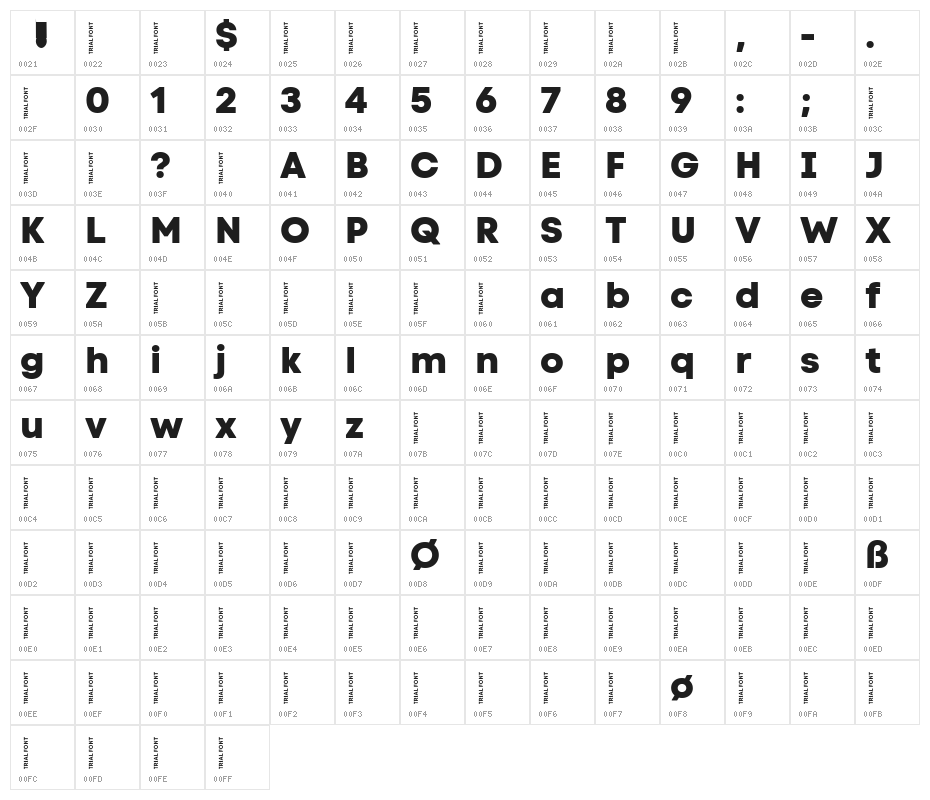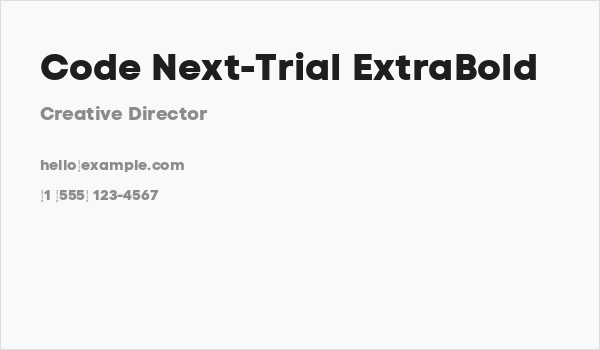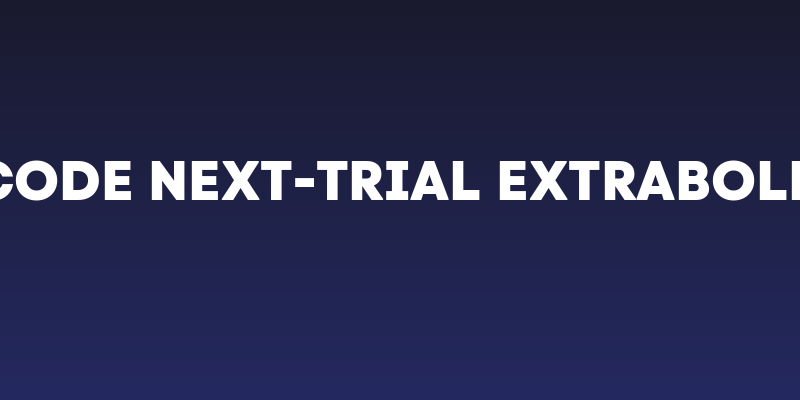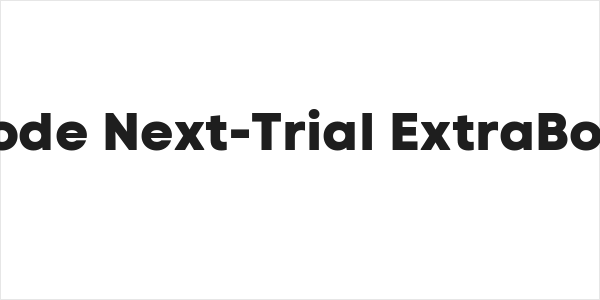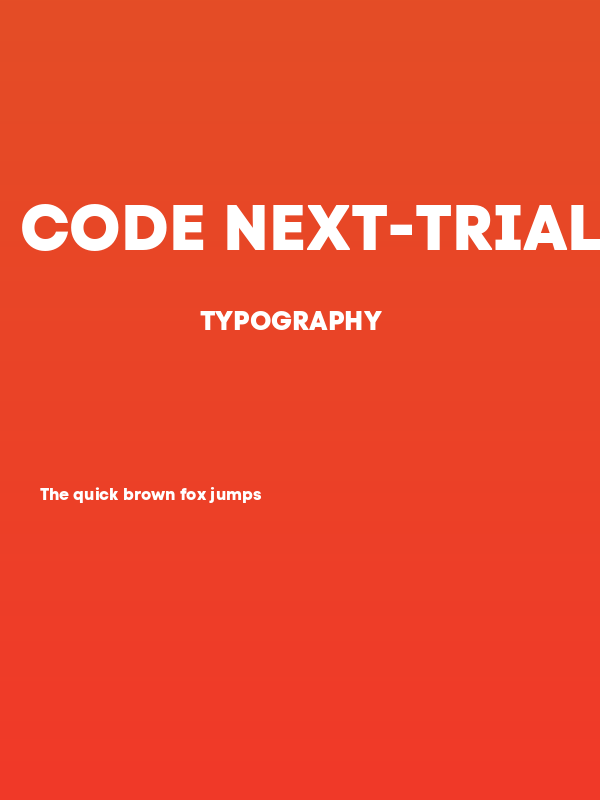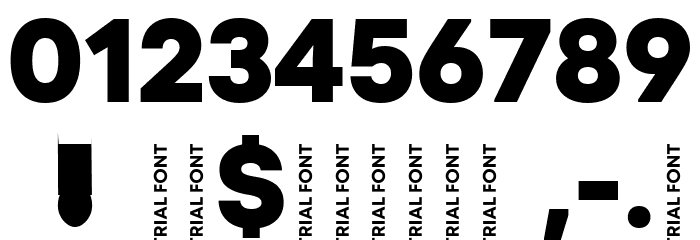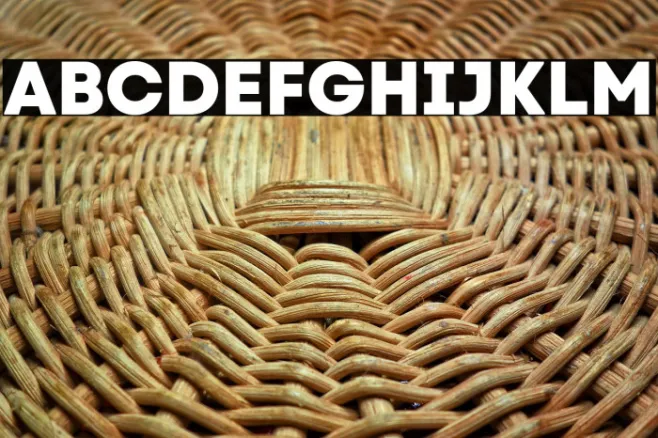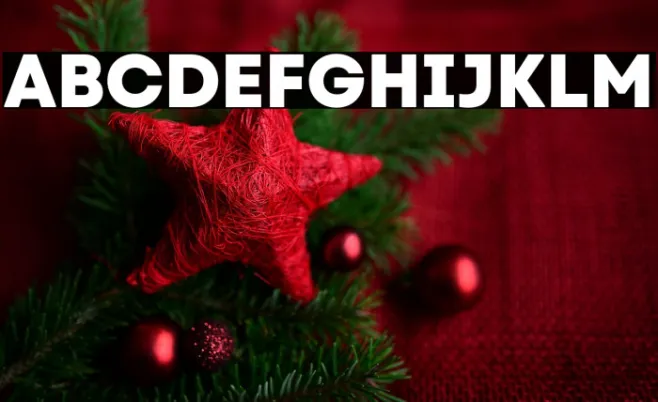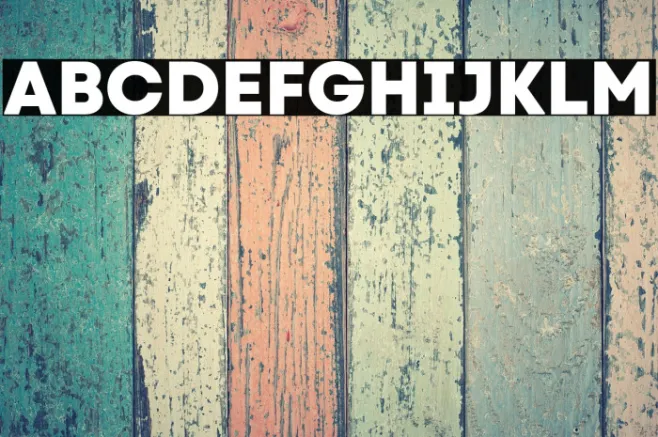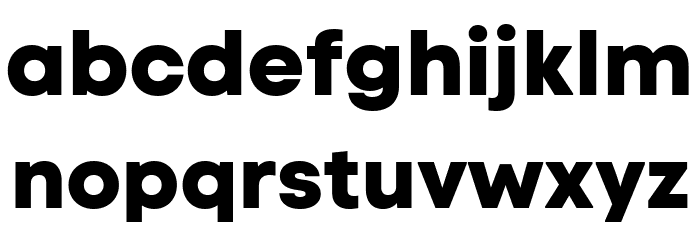
Code Next-Trial ExtraBold Font
Code Next-Trial ExtraBold Description
This font features a bold and modern sans-serif style with clean, geometric lines. The characters are evenly weighted, providing a strong and impactful appearance. The uppercase and lowercase letters maintain a consistent thickness, contributing to a uniform look. Numbers and special characters are designed with the same boldness, ensuring readability and emphasis. The overall design is straightforward and functional, making it suitable for various applications where clarity and presence are essential.